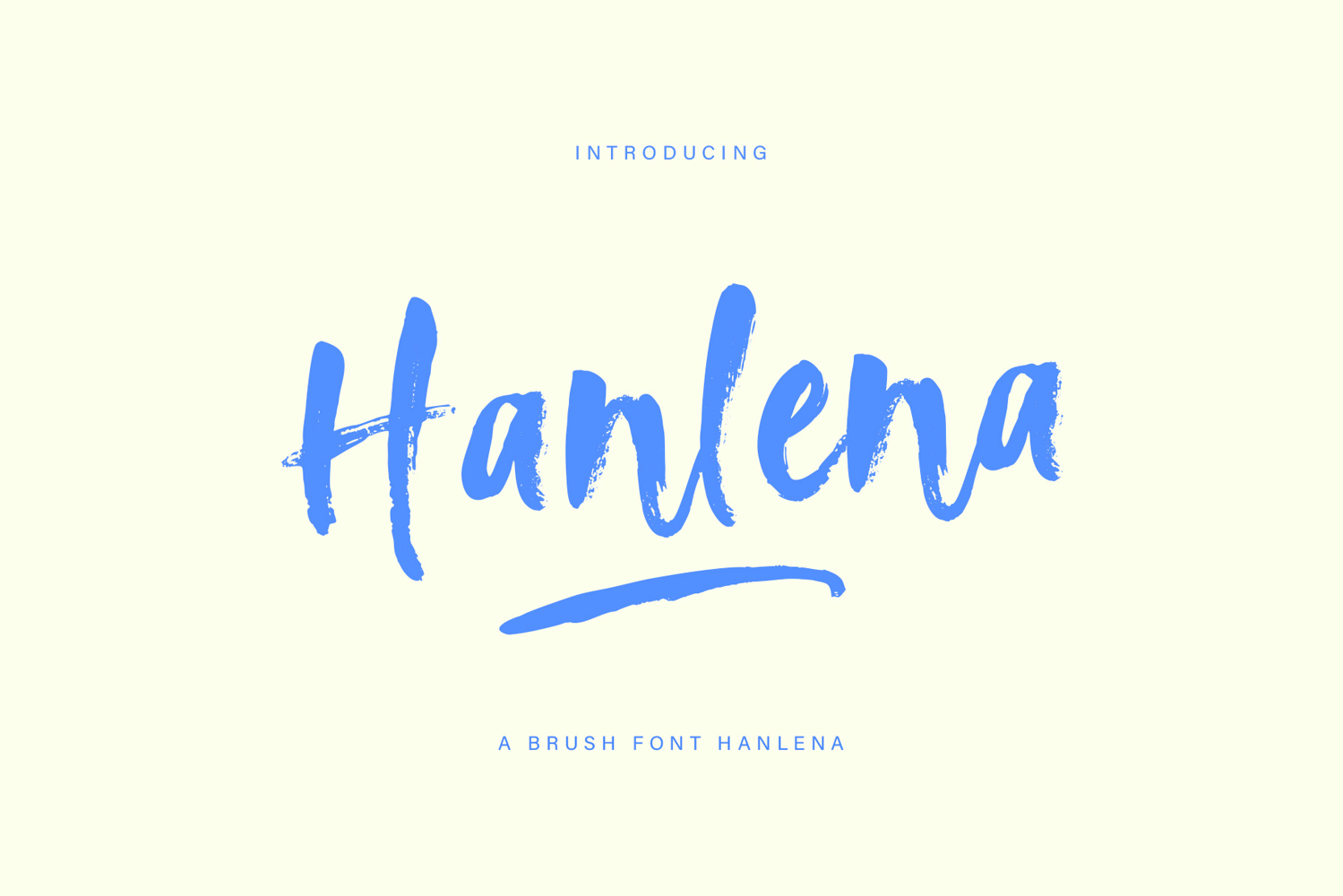
Modern handwritten font with brush texture. Its authentic texture makes it the perfect choice for branding and digital design.
This font is perfect for branding, logos, web, instagram, quotes, business cards, signs, headers, blogs, branding, invitations, and more!